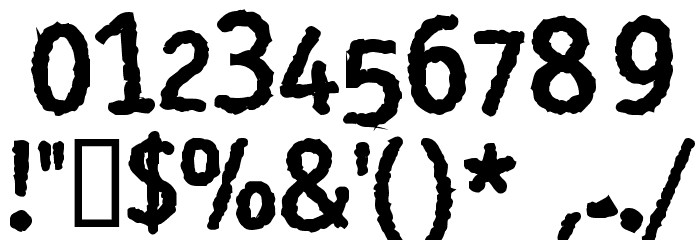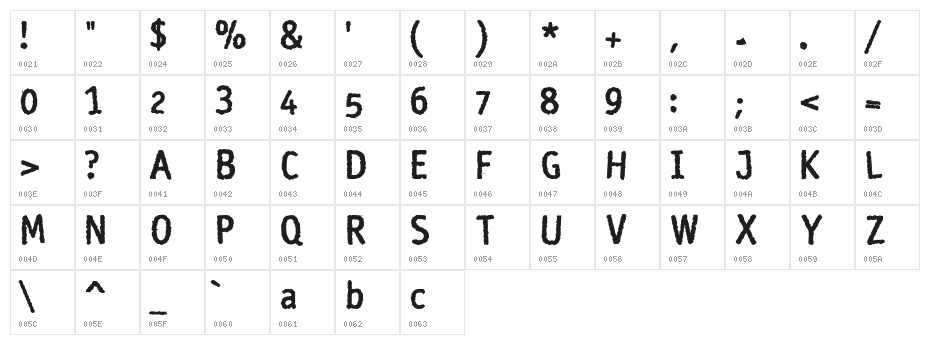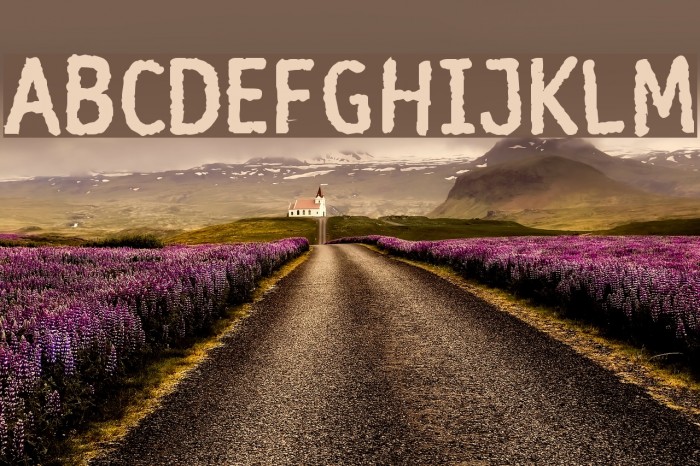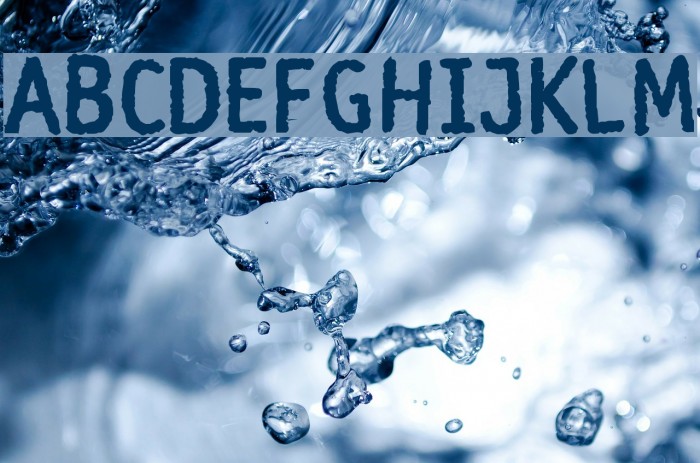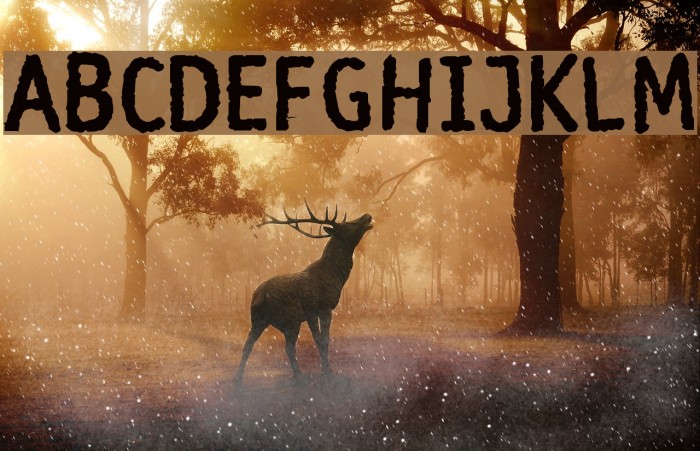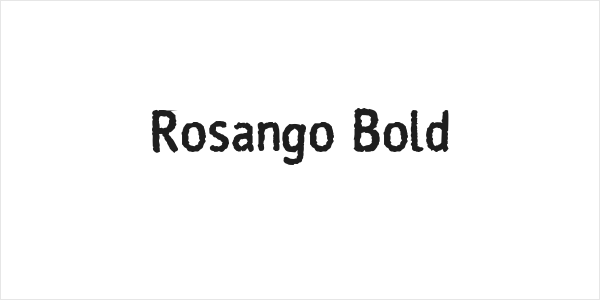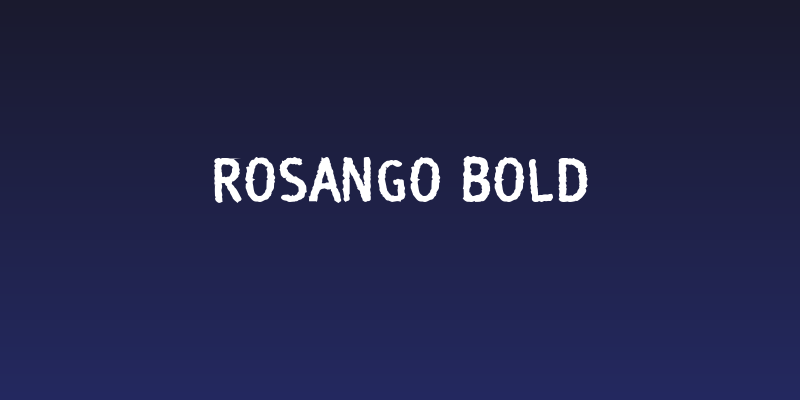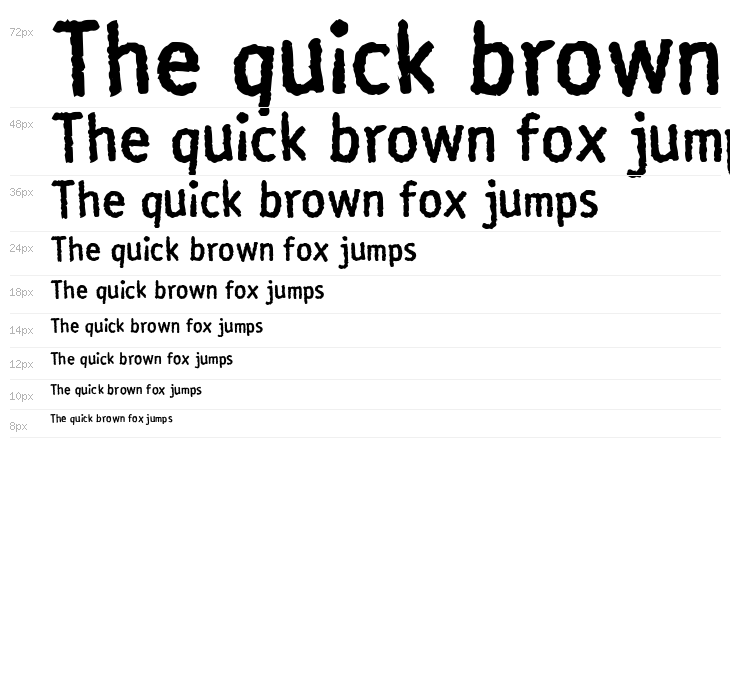
Rosango Bold Font
Rosango Bold Description
This font features a bold and rugged design with a hand-drawn appearance. The characters have a textured, uneven edge that gives them a rustic and organic feel. The uppercase and lowercase letters maintain a consistent style, with slightly irregular strokes that add to the handcrafted aesthetic. The numerals and special characters follow the same design principles, ensuring a cohesive look across all glyphs. This font is ideal for projects that require a touch of authenticity and character, such as branding for artisanal products or creative design work.